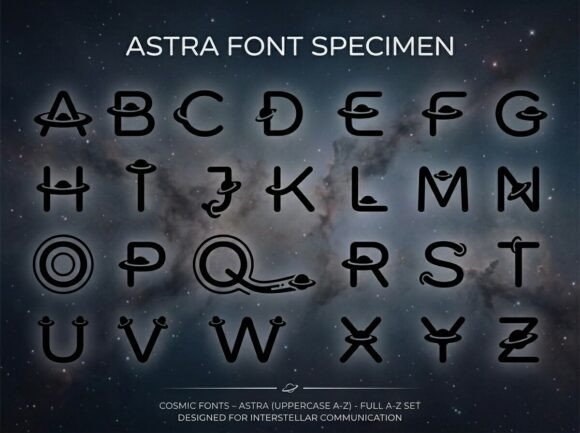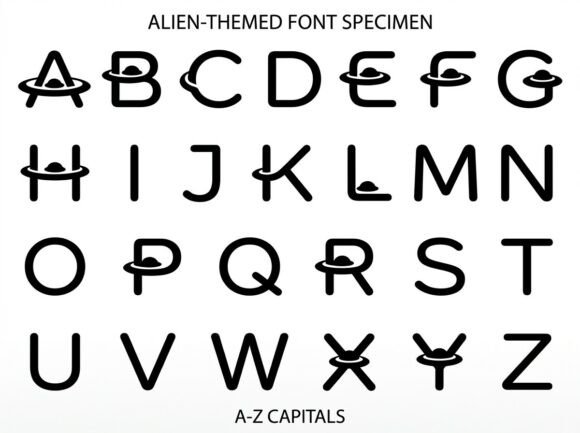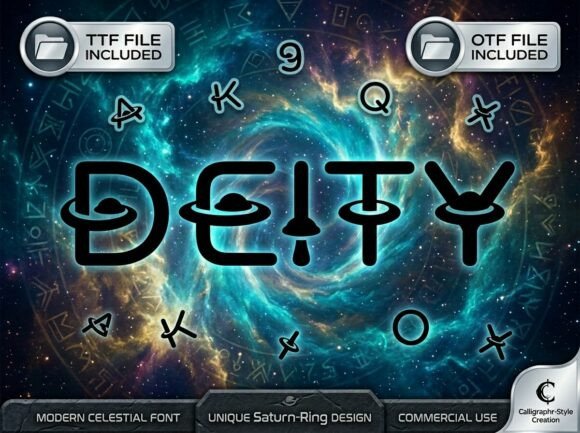
Unleash Your Creativity with Deity Font: A Cosmic Adventure Awaits
Are you ready to explore the outer reaches of your imagination and create something truly out of this world? Look no further than Deity, a space adventure font that’s designed to make a galactic impact. This high-concept typeface is perfect for designers and crafters who want to add a touch of celestial wonder and innovative, high-tech charm to their projects.
The Deity Difference: A Futuristic Aesthetic
Deity’s unique design features clean, rounded monoline letterforms where the horizontal crossbars and negative spaces are replaced by stylized Saturn-like rings and planetary icons. This futuristic, “techno-optimist” aesthetic makes it an extraordinary choice for a wide range of applications, from sci-fi gaming titles and astronomical branding to tech startup logos and cosmic social media graphics.
Whether you’re crafting a logo for a futuristic app, creating a standout header for a space-themed campaign, or simply looking for a font that will make your project stand out, Deity delivers. Its versatility and creativity make it an ideal choice for:
- Sci-fi gaming titles that need a bold, otherworldly look
- Astronomical branding that requires a sense of celestial wonder
- Tech startup logos that want to convey innovation and forward thinking
- Cosmic social media graphics that need to grab attention
- Any project that requires a touch of high-tech charm and futurism
What Makes Deity Font So Special?
Deity’s unique design elements make it a standout in the world of typography. Here are just a few reasons why:
- Stylized Saturn-like rings: The horizontal crossbars and negative spaces in Deity’s letterforms are replaced by stylized Saturn-like rings, adding a touch of celestial wonder to every word.
- Planetary icons: The incorporation of planetary icons into the design adds a sense of adventure and exploration, perfect for projects that require a sense of excitement and discovery.
- Clean, rounded monoline letterforms: The clean, rounded monoline letterforms provide a sense of simplicity and elegance, making Deity a versatile font that can be used in a wide range of applications.
Tips for Using Deity Font
To get the most out of Deity, here are a few tips to keep in mind:
- Experiment with different colors: Deity’s futuristic aesthetic lends itself well to bold, vibrant colors. Try experimenting with different color schemes to find the one that works best for your project.
- Play with scale: Deity’s unique design elements can be used to create a sense of depth and dimensionality. Try playing with scale to add visual interest to your project.
- Combine with other fonts: Deity can be paired with other fonts to create a unique and visually appealing combination. Try experimenting with different font pairings to find the one that works best for your project.
Deity font is a game-changer for designers and crafters who want to add a touch of celestial wonder and innovative, high-tech charm to their projects. Its unique design elements, versatility, and creativity make it an ideal choice for a wide range of applications. Whether you’re working on a sci-fi gaming title, astronomical branding, or simply looking for a font that will make your project stand out, Deity delivers. So why wait? Explore the outer reaches of your imagination with Deity font and see where the adventure takes you!